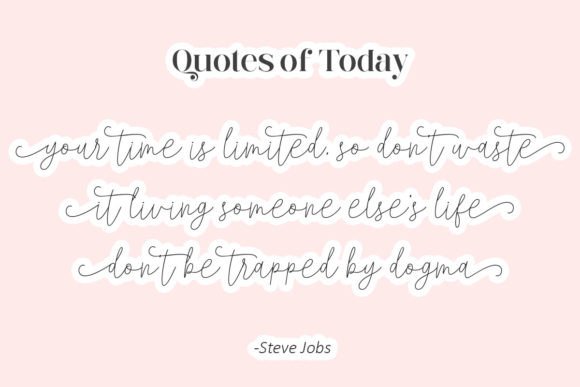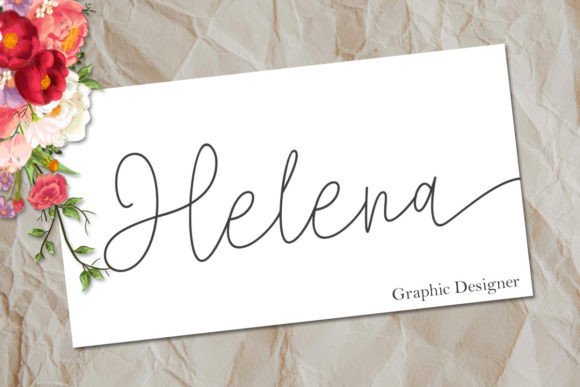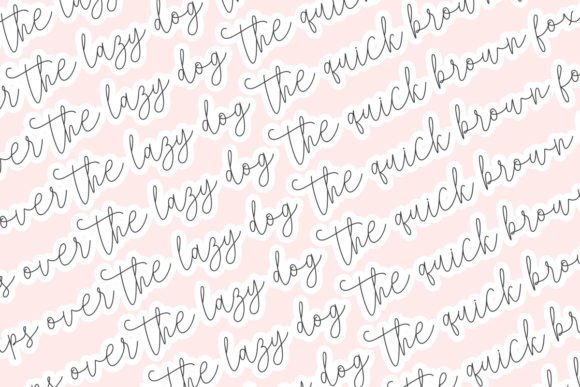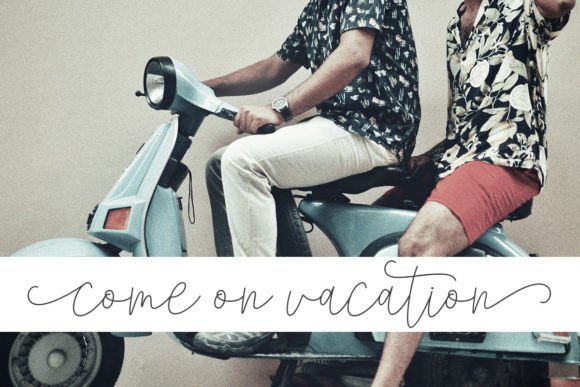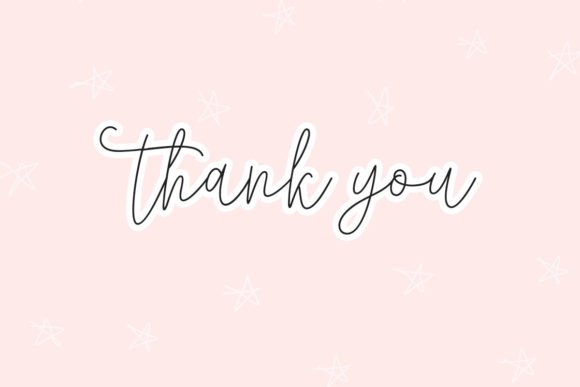
The Butterfly Font: A Designer’s New Best Friend
I’ll never forget the moment I stumbled upon the Butterfly font while working on a farmhouse-themed design project. I was on a tight deadline, and my client was being super picky about the font – it had to be monoline, signature-style, and perfect for SVG designs. I scoured the internet, tried out a dozen fonts, but none seemed quite right. That was until I found Butterfly. It was love at first sight! 💕
What I Love About Butterfly Font
- ✨ Monoline and signature-style: Perfect for farmhouse designs, crafts, and DIY projects.
- ✅ SVG-friendly: Great for Cricut projects, shirts, and other cut-file designs.
- 🌼 Elegant and whimsical: Adds a touch of personality to any design.
- 💻 Crafting and design versatility: Suitable for logos, branding, blogs, invitations, and more!
While Butterfly Font is amazing, there are a few things to keep in mind: 🤔
- ⚠️ Some characters may require manual kerning: Butterfly Font is designed to be elegant, but that means some letter combinations might need a little extra tweaking for optimal spacing.
- ⚠️ Not ideal for body text: This font shines in headlines and titles, but might be a bit too ornate for longer blocks of text.
Butterfly Font was designed with the modern crafter and designer in mind. Its creator, a passionate typographer, aimed to craft a font that would be both elegant and versatile. Inspired by the delicate beauty of butterflies, this font combines simplicity with personality.